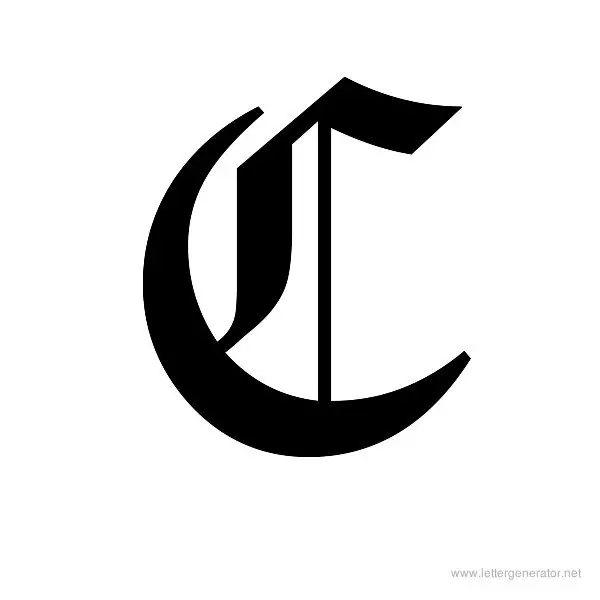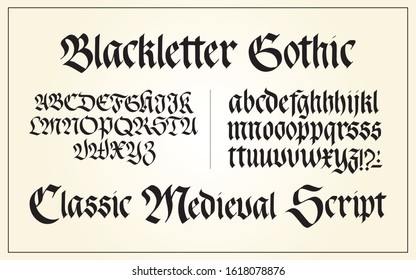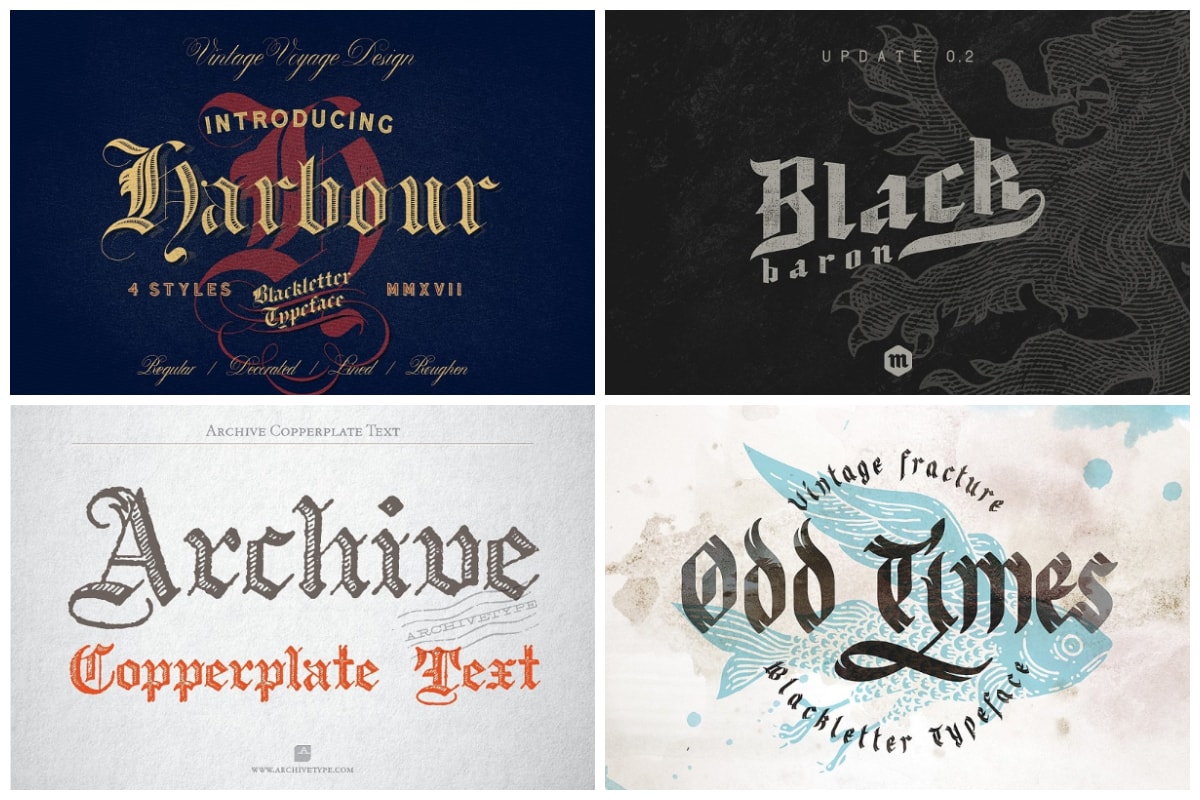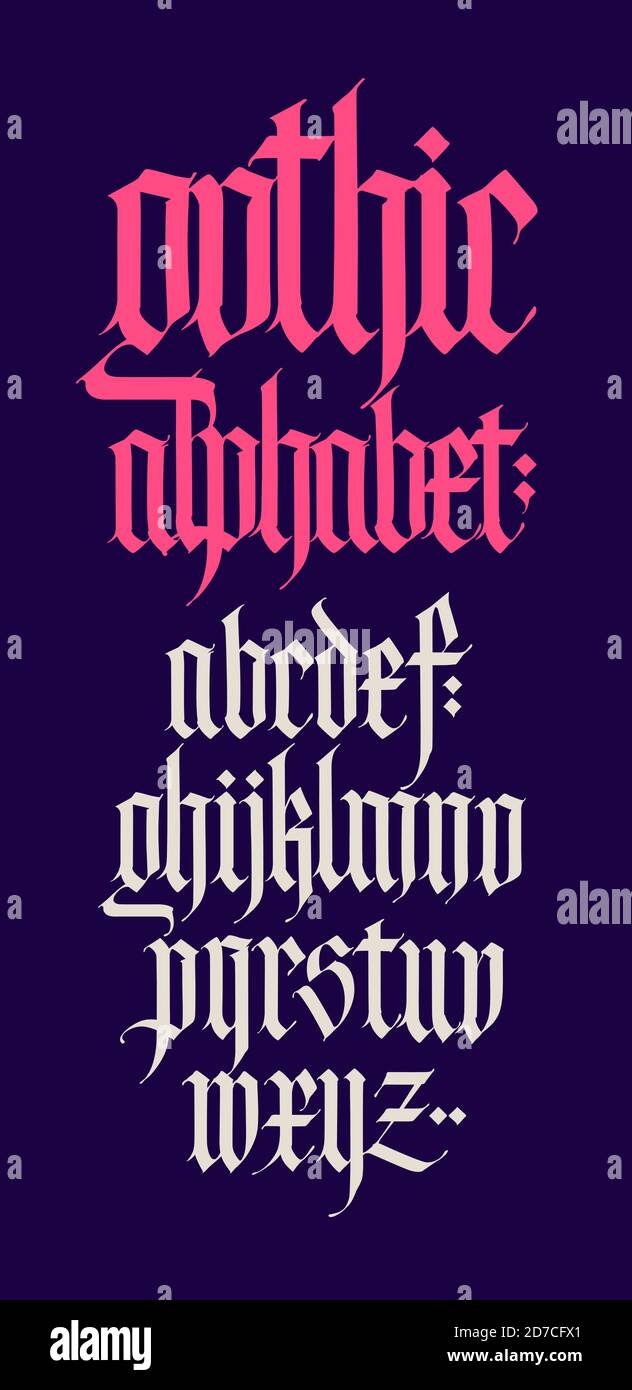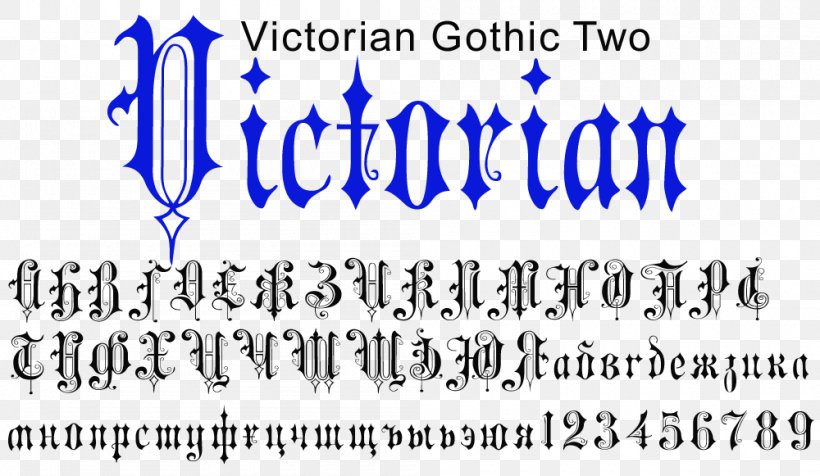
Back letter is a style of the alphabet in calligraphy that was used to manuscript books and chronicles between the 12 th and 20 th century.
Black letter alphabet is also known as the Gothic script or Old English script. The best Gothic for free download that are hand picked collections by our editorial experts and can be used Dafont Free Fonts on Mac PC Website. This theme is best described as.
May 2 2021 - CHANCERY CALLIGRAPHY SVG Monogram Font Files Black Chancery Alphabet Clipart Set Fancy Gothic Font MONOGRAM SVG Files Includes Upper Lower Case Letters Numbers 0-9 plus 6 punctuation marks show in ad in SVG DXF EPS PNG file formats. Blackletter also known as Gothic script Gothic minuscule or Textura was a script used throughout Western Europe from approximately 1150 to well into the 17th. Download this set of free calligraphy as individual letter templates from A through Z below.
Click to find the best 47 free fonts in the Gothic Script style. Gothic script gothic blackletter gothic fonts fraktur decorative calligraphy old english gothic style black letter tattoos tattoofont romantic oldstyle old-style old style monastic middle ages medieval manuscript logotype invitations gothic tuscan gothic revival gothic calligraphy. Looking for Gothic Calligraphy fonts.
Plus with the help of this gothic lettering calligraphy cheat sheet it isnt difficult or expensive to learn. Print Free Gothic Calligraphy Alphabets from A to Z. From invitations to formal documentation and from diplomas to greeting cards the options are endless.